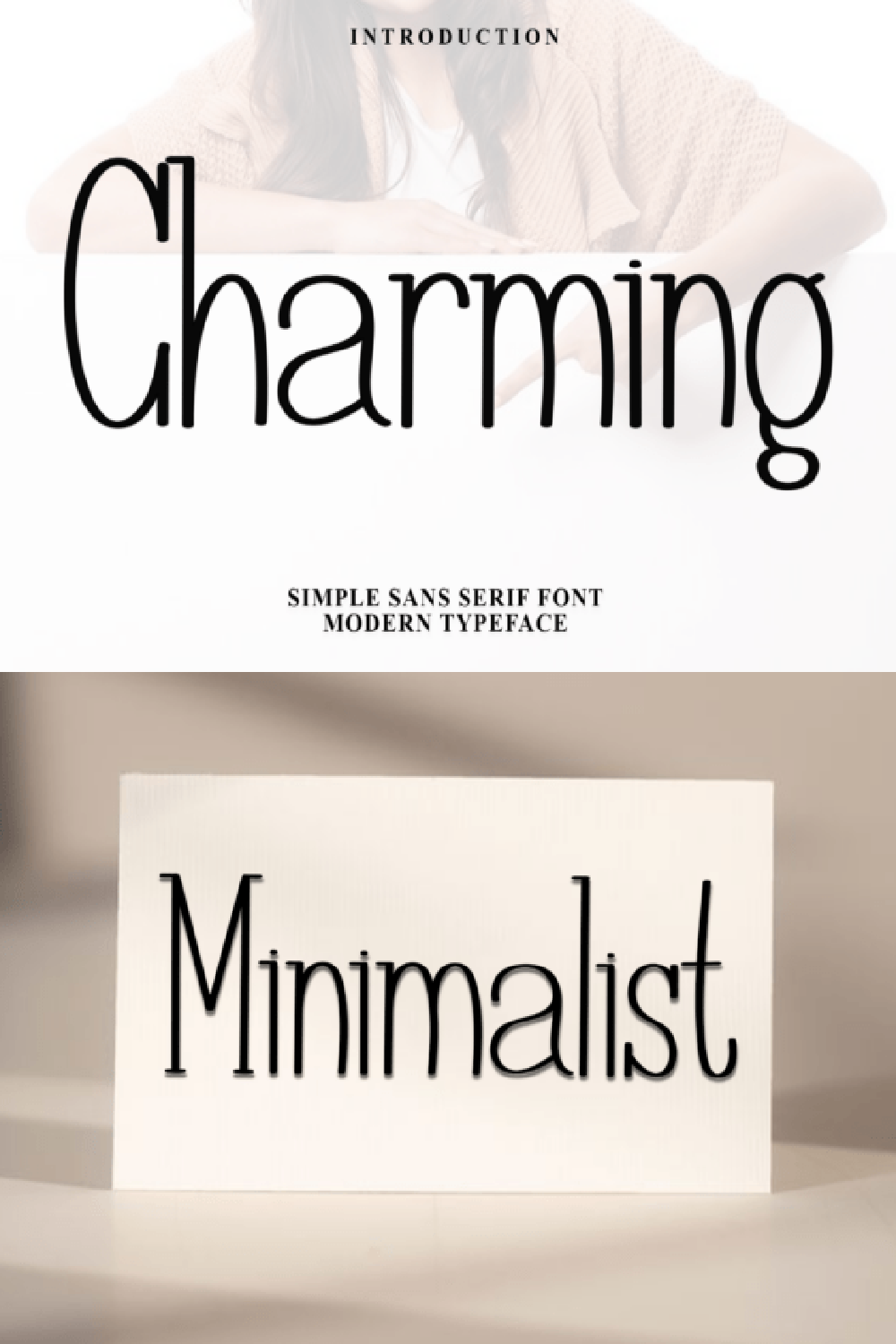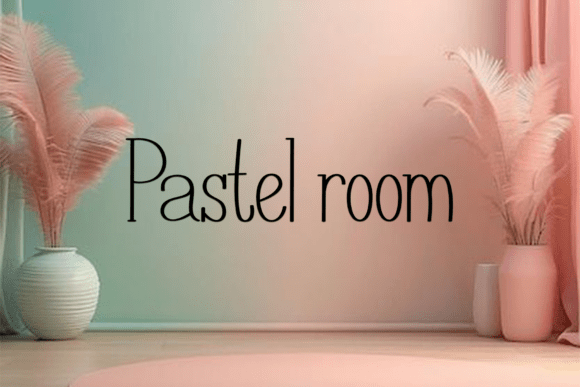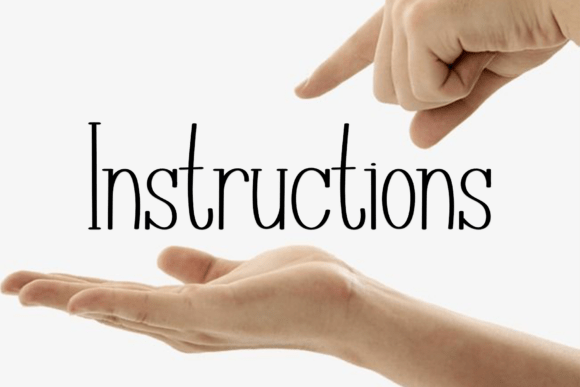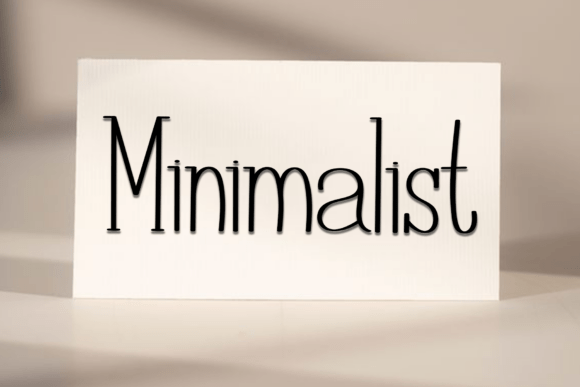
About the Charming Font
Meet Charming Font, a stunning font that brings a touch of elegance and professionalism to any design. Charming is a magical font carefully created with a touch of elegance. Whether you’re looking for fonts for Instagram or calligraphy scripts for DIY projects, this font will turn any creative idea into a true piece of art!
Charming Font Usage Examples